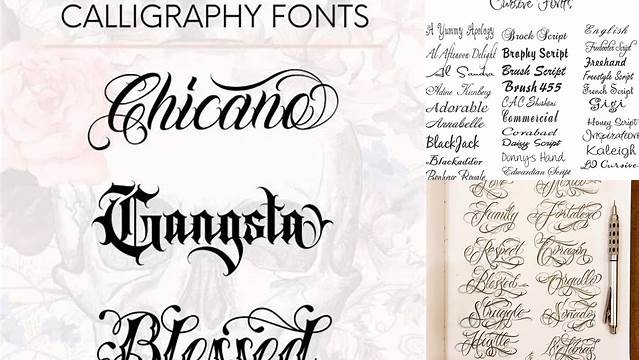
Cursive Fonts For Tattoos: Styles & Tips
Hey guys! Getting a tattoo is a big decision, and choosing the right font is just as important as the design itself, especially if you're leaning towards cursive. Cursive fonts can add a touch of elegance, personality, and uniqueness to your tattoo. But with so many options out there, it can be a bit overwhelming to pick the perfect one. Don't worry, though! This guide will walk you through some amazing cursive fonts that can make your tattoo truly stand out. We'll cover a variety of styles, from classic and refined to modern and bold, so you can find the perfect match for your vibe.
Why Choose Cursive Fonts for Tattoos?
So, why are cursive fonts such a popular choice for tattoos? Well, there are several reasons. Cursive fonts bring a sense of flow and connection, making the tattoo feel more like a piece of art than just words. The elegant loops and swirls can add a touch of sophistication and romance, perfect for meaningful quotes, names, or dates. Cursive also has a timeless quality, making it a classic choice that won't go out of style anytime soon. Plus, the variety within cursive fonts is incredible! You can find everything from delicate scripts to bold, dramatic lettering, ensuring there’s a style to match any personality or design. Choosing the right font will make your tattoo more personal and meaningful, reflecting your unique story and style. When you get a tattoo, you want it to look awesome, right? Cursive fonts do exactly that by bringing a certain flair that other fonts might miss.
The Appeal of Cursive Tattoos
The appeal of cursive tattoos lies in their ability to convey emotion and personality. Think about it – the way we write in cursive is unique to each of us, reflecting our individual style and flair. This same personal touch translates beautifully into tattoos. A cursive tattoo can feel more intimate and heartfelt than a blocky, printed font. The flowing lines create a sense of movement and artistry, turning words into visual poetry on your skin. Moreover, cursive fonts often have a timeless quality. They evoke a sense of tradition and elegance, making them a solid choice for tattoos that you'll want to love for years to come. Whether you're getting a quote, a name, or a special date, cursive can elevate the design and make it feel extra special. The versatility of cursive is another big draw. You can choose from delicate, airy scripts to bold, dramatic flourishes, tailoring the font to perfectly match your style and the message you want to convey. This adaptability means that cursive works well for a wide range of tattoo styles and placements, making it a universally appealing option for anyone looking to add a touch of elegance and personality to their ink.
Popular Cursive Font Styles for Tattoos
Alright, let's dive into some popular cursive font styles for tattoos. Knowing the different styles out there can really help you narrow down your choices and find something you truly love. We'll cover a range of options, from the classic and elegant to the modern and edgy, so you can get a feel for what resonates with you. Whether you're into delicate scripts or bold statements, there's a cursive style out there for everyone. We'll explore fonts that work well for different tattoo placements and sizes, giving you a better idea of what will look best on your skin. So, let's get started and check out some awesome cursive fonts!
Classic and Elegant Cursive Fonts
When it comes to classic and elegant cursive fonts, think timeless beauty and sophistication. These fonts are all about smooth lines, graceful curves, and a touch of tradition. They often evoke a sense of old-world charm, making them perfect for tattoos that are meant to be both beautiful and meaningful. Fonts in this category include styles like script fonts, which are inspired by formal handwriting, and Spencerian script, known for its ornate flourishes and elegant letterforms. These classic styles work wonderfully for quotes, names, and dates, adding a touch of refinement to your tattoo. They're also versatile enough to pair well with various tattoo designs, from floral motifs to minimalist art. Imagine a delicate quote flowing across your collarbone in a graceful script, or a loved one's name inked in elegant Spencerian lettering – these classic fonts bring a touch of timeless elegance to any tattoo. The key to their appeal is their readability and refined appearance, making them a solid choice for anyone looking for a tattoo that exudes grace and sophistication. Furthermore, these fonts tend to age well, maintaining their clarity and beauty over time, which is a major plus for a lifelong piece of art.
Modern and Stylish Cursive Fonts
If you're aiming for a modern and stylish cursive font, you're in for a treat! These fonts take the classic cursive style and give it a contemporary twist, perfect for those who want a tattoo that feels fresh and unique. Modern cursive fonts often feature bolder lines, cleaner shapes, and a more playful attitude than their traditional counterparts. Think of fonts like brush script, which mimics the look of hand-painted lettering, or calligraphy-inspired fonts with a sleek, minimalist edge. These styles work great for shorter quotes, single words, or names, especially if you want your tattoo to make a statement without being overly ornate. They also pair well with geometric designs, abstract art, or other modern tattoo styles. Imagine a single, powerful word inked in bold brush script on your wrist, or a meaningful phrase flowing down your arm in a chic, contemporary calligraphy style – these modern fonts bring a cool, stylish vibe to any tattoo. The beauty of these fonts lies in their versatility; they can be both eye-catching and easy to read, making them a fantastic option for those who want their tattoo to reflect their modern sensibilities. Plus, their clean lines and unique shapes ensure that your tattoo will stand out from the crowd.
Bold and Dramatic Cursive Fonts
For those who want their tattoo to really pop, bold and dramatic cursive fonts are the way to go! These fonts are all about making a statement, with thick lines, strong shapes, and a lot of personality. They're perfect for larger tattoos or for those who want their ink to be the center of attention. Think of fonts that have a handwritten feel but with a powerful presence, like a bold script with exaggerated loops and flourishes. These styles work wonders for impactful quotes, meaningful words, or even names that you want to emphasize. A bold cursive font can add a touch of drama and flair to your tattoo, making it a true work of art. They also pair well with other bold design elements, such as strong lines, shading, and vivid colors. Imagine a powerful quote inked across your back in a striking, dramatic cursive, or a loved one's name tattooed on your forearm in bold, attention-grabbing letters – these fonts bring a sense of confidence and artistry to any tattoo. The key to their appeal is their visual impact; they're designed to be noticed and remembered. However, it's important to consider the size and placement of your tattoo when choosing a bold font, as these styles can sometimes appear cluttered if they're too small or too close together. When done right, though, a bold cursive font can transform your tattoo into a true masterpiece.
Tips for Choosing the Right Cursive Font
Choosing the right cursive font for your tattoo can feel like a big decision, but don't worry, guys! Here are a few tips to help you nail it. First, think about the message you want to convey. Is it elegant and timeless, or bold and modern? Your font choice should match the tone and meaning of your tattoo. Next, consider the size and placement. A delicate script might look beautiful on your wrist, but it might not be legible across your back. Bold fonts work well for larger areas, while finer scripts are better for smaller spaces. Readability is also key – make sure the font is clear and easy to read, even from a distance. You don't want people squinting to decipher your ink! Finally, don't be afraid to try out different fonts and see how they look on your skin. Most tattoo artists can provide mock-ups, so you can get a feel for the final result. By keeping these tips in mind, you'll be well on your way to choosing a cursive font that you'll love for years to come.
Considering Readability and Size
When choosing a cursive font, considering readability and size is super important. No one wants a tattoo that's illegible, right? Think about how clear the font will be, not just when it's freshly inked, but also as it ages. Some cursive fonts, especially the more ornate ones, can become a bit muddled over time, so it’s crucial to pick a style that will maintain its clarity. Size also plays a big role. A delicate, fine script might look stunning on a small area like your wrist, but it might get lost if you try to use it for a large piece on your back. Conversely, a bold, dramatic font might be perfect for a larger tattoo, but it could appear too crowded and overwhelming if squeezed into a small space. It's a good idea to talk to your tattoo artist about the best size and font combination for your design and placement. They can offer valuable advice based on their experience and help you avoid any potential readability issues down the line. Remember, the goal is to have a tattoo that looks fantastic and can be easily read, so taking the time to consider these factors is totally worth it!
Matching the Font to Your Tattoo Design
Matching the font to your tattoo design is like finding the perfect frame for a masterpiece – it can truly elevate the entire piece! Think about the overall vibe of your tattoo. Is it delicate and feminine, or bold and edgy? Your font should complement these elements. For instance, if you're getting a floral tattoo, a graceful, flowing script might be the perfect match. On the other hand, if you're going for a more modern or geometric design, a cleaner, bolder cursive font might be a better fit. Consider the meaning behind your tattoo as well. If it's a quote about strength and resilience, a strong, impactful font can help reinforce that message. If it's a tribute to a loved one, a more elegant and personal script might be more appropriate. It's also a good idea to look at examples of different fonts paired with similar tattoo designs to get a feel for what works best. Don't be afraid to experiment and try out different options until you find the one that truly clicks. Your tattoo artist can be a great resource here, offering insights and suggestions based on their artistic eye and experience. Ultimately, the goal is to create a cohesive and visually appealing tattoo, and choosing the right font is a key part of that process.
Choosing the right cursive font for your tattoo is a crucial step in creating a piece of art that you'll cherish forever. With so many beautiful styles to choose from, taking the time to explore your options and find the perfect match for your personality and design is well worth the effort. Remember to consider factors like readability, size, and how the font complements your overall tattoo concept. And, of course, don't underestimate the value of consulting with your tattoo artist – their expertise can make all the difference in bringing your vision to life. Whether you go for a classic script, a modern calligraphy, or a bold, dramatic cursive, the right font can transform your tattoo into a stunning expression of yourself. So, go ahead and explore the world of cursive fonts, and get ready to rock some seriously stylish ink!